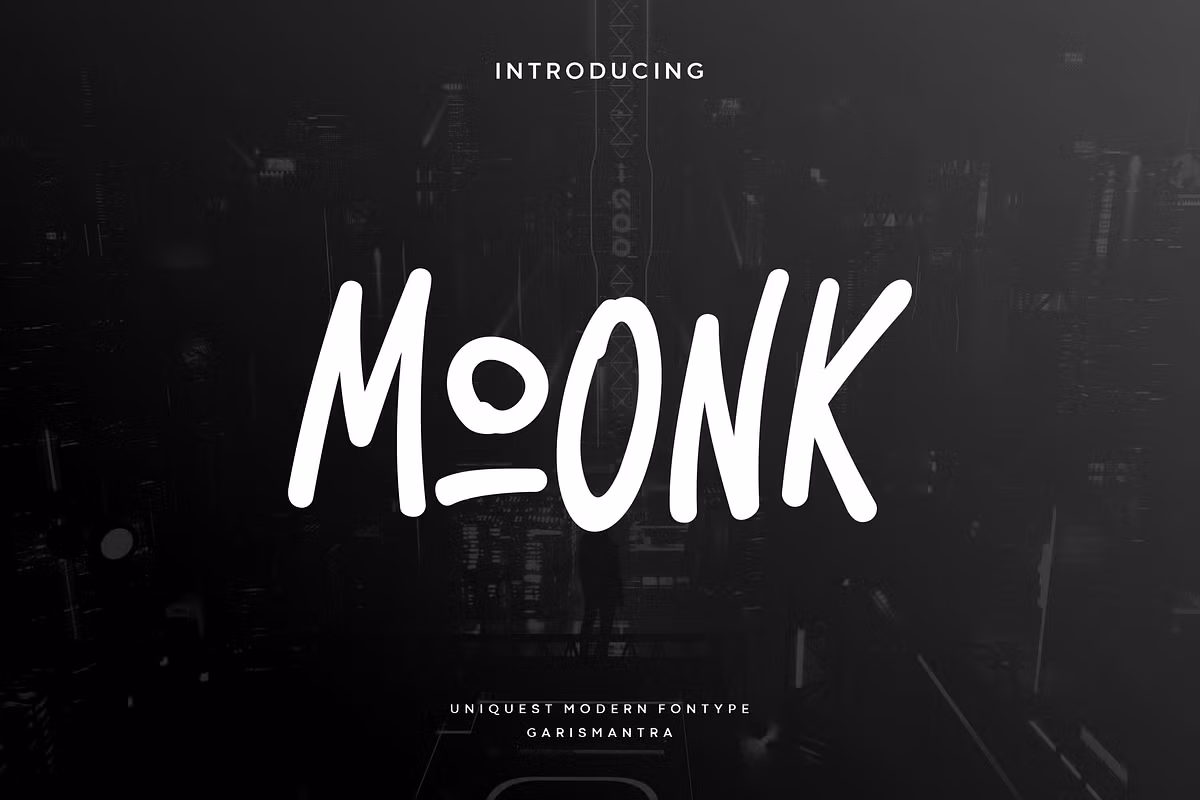
Moonk Font Free Download is a sleek and modern typeface that combines clean lines with a touch of creativity. Its minimalistic design makes it perfect for a wide range of projects, from branding and logos to websites and editorial designs. Whether you're working on a sophisticated campaign, crafting a stylish logo, or creating minimalist designs, Moonk Font Free Download provides a versatile and impactful solution. The font's contemporary look ensures your message is communicated clearly and effectively, while its unique character adds a distinctive touch to any project. Experiment with this modern font in personal projects before purchasing a commercial license and elevate your designs with the simple elegance of Moonk.